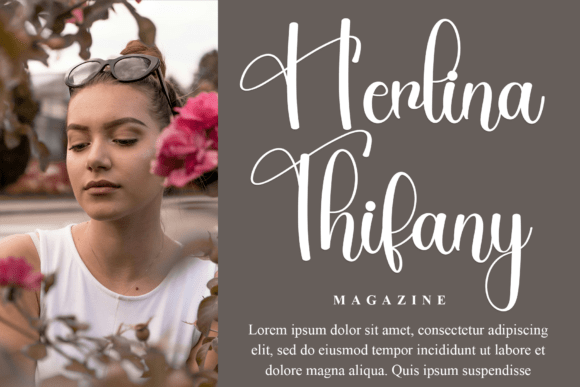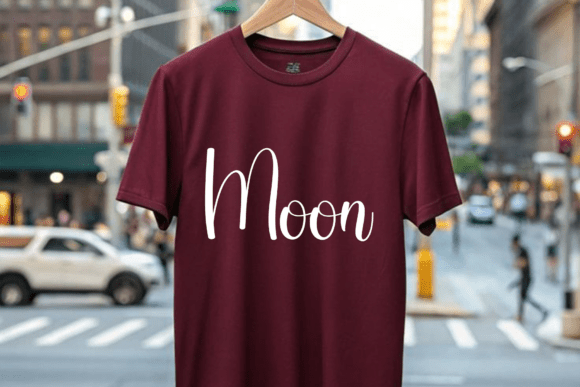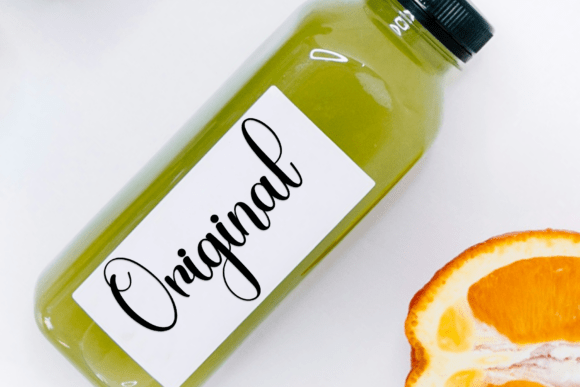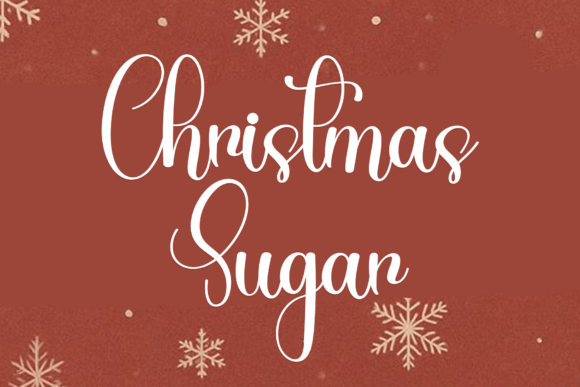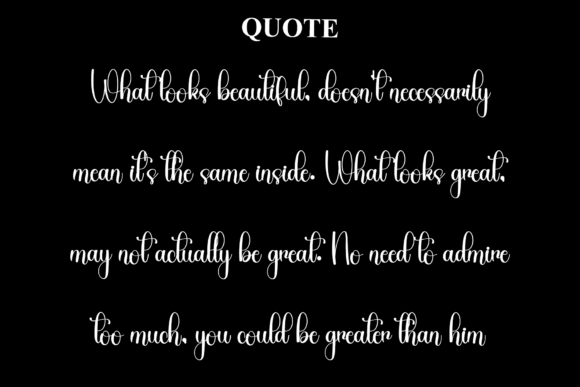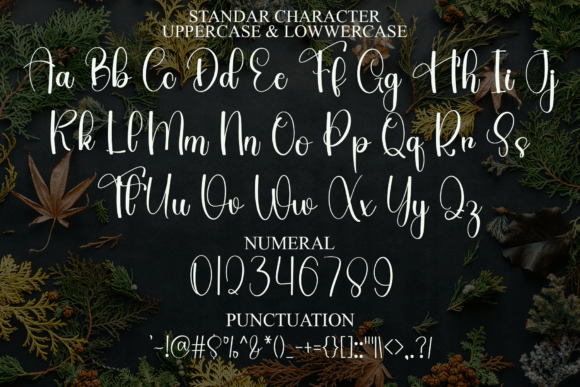
Catalina Handmade Font: Adding a Touch of Warmth and Friendliness to Your Designs
In the world of typography, fonts play a crucial role in conveying the tone and personality of a design. If you’re looking for a font that exudes warmth, friendliness, and a touch of playfulness, look no further than the Catalina Handmade Font. This casual and creative font is perfect for designers, crafters, and DIY enthusiasts who want to add a personal touch to their projects.
The Characteristics of Catalina Handmade Font
The Catalina Handmade Font is characterized by its round, playful strokes that create a relaxed and approachable feel. The font’s charming, hand-drawn aesthetic adds a fun and unique touch to any design, making it perfect for personal projects, invitations, social media graphics, and more. The font’s casual and creative vibe makes it an excellent choice for designers who want to add a personal touch to their work.
What Makes Catalina Handmade Font Special?
One of the standout features of the Catalina Handmade Font is its standard PUA Encoded glyphs. This means that the font is equipped with a range of glyphs that can be used in various application engines, including Adobe Photoshop, Corel, Adobe Illustrator, Canva, and many others. This makes it easy to use the font in a variety of design software, giving you the flexibility to create stunning designs with ease.
Perfect for Personal Projects and DIY Enthusiasts
The Catalina Handmade Font is perfect for personal projects, such as creating invitations, greeting cards, and social media graphics. The font’s playful and creative vibe makes it an excellent choice for DIY enthusiasts who want to add a personal touch to their crafts. Whether you’re creating a handmade card, a scrapbook page, or a DIY project, this font is sure to add a touch of warmth and friendliness to your design.
Why Designers Love Catalina Handmade Font
Designers love the Catalina Handmade Font for its unique and charming aesthetic. The font’s hand-drawn look adds a touch of personality to any design, making it perfect for designers who want to create stunning and eye-catching graphics. The font’s versatility also makes it an excellent choice for designers who work on a range of projects, from branding and advertising to packaging and web design.
Tips for Using Catalina Handmade Font
The Catalina Handmade Font is a versatile and charming font that is perfect for designers, crafters, and DIY enthusiasts. Its casual and creative vibe makes it an excellent choice for personal projects, invitations, social media graphics, and more. With its standard PUA Encoded glyphs and hand-drawn aesthetic, this font is sure to add a touch of warmth and friendliness to any design. So why not give it a try and see how it can elevate your designs?
Whether you’re a seasoned designer or a DIY enthusiast, the Catalina Handmade Font is a great addition to your font library. Its unique and charming aesthetic makes it perfect for a range of projects, from personal to professional. So go ahead, get creative, and see what amazing designs you can create with the Catalina Handmade Font!